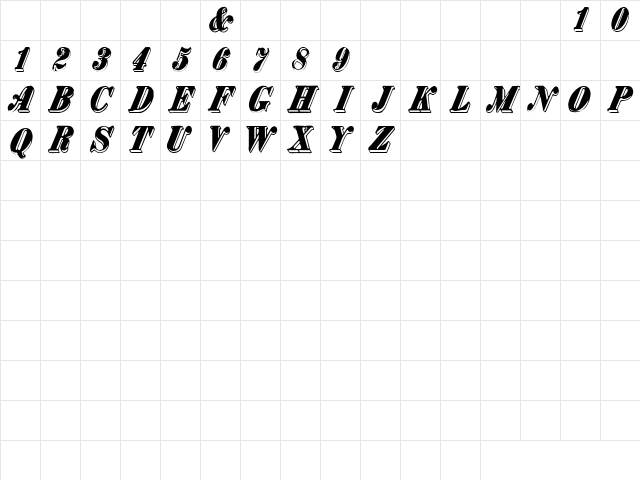
Complete Bank Note Normal glyph index. Displaying only characters natively supported by Bank Note Normal font.
Bank Note is a composed and adaptable typeface that performs quietly and consistently across a wide range of design contexts.